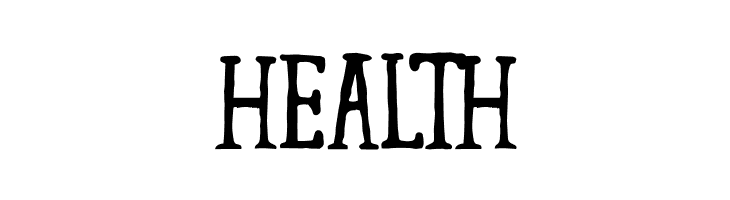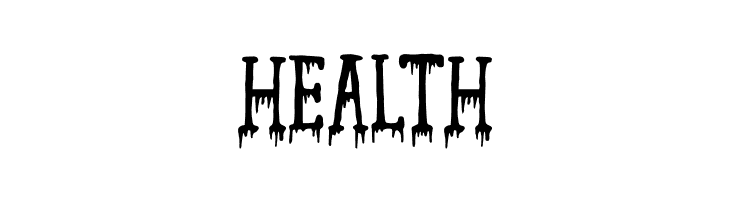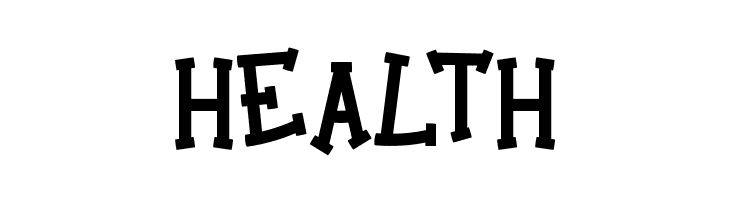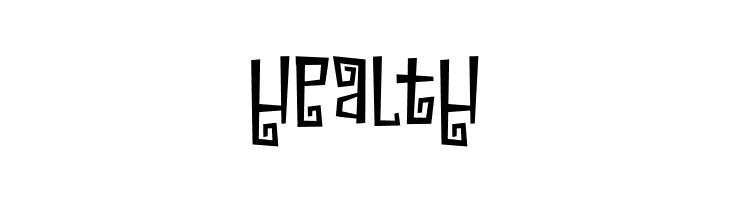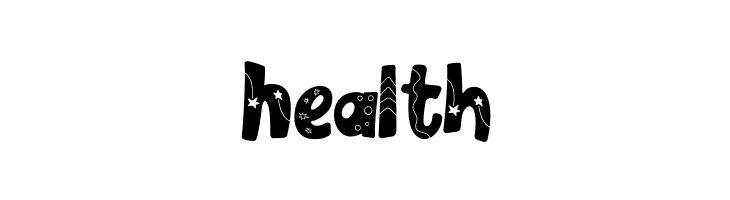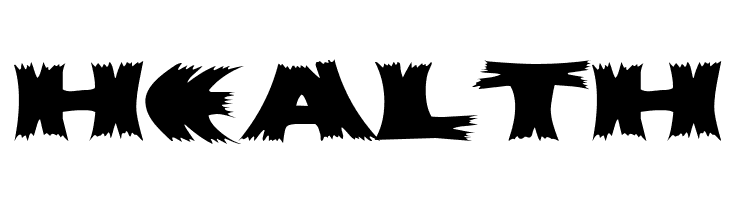
A modern, geometric font with clean lines and a uniform structure.
A playful, bold font with whimsical, energetic characters and high contrast.
A bold, playful, and cartoonish hand-drawn font with exaggerated curves.
A bold, decorative font with playful patterns and embellishments.
A playful and elegant script font with a handwritten style.
A playful, spiral-themed font with bold, angular characters.
A bold, hand-drawn font with a vintage, rustic style.
A spooky, dripping decorative font ideal for horror themes.